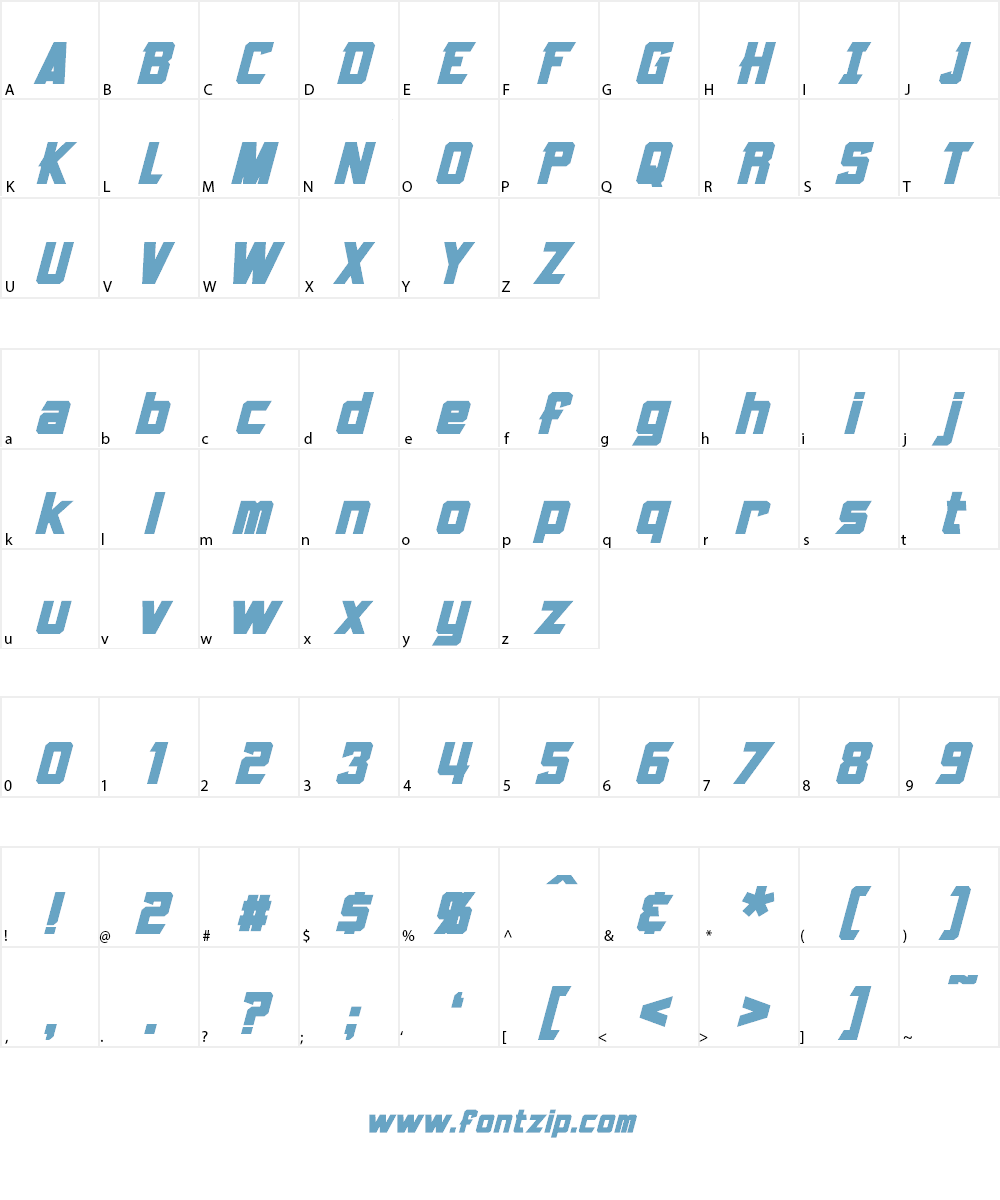
Armorhide is a thick, bold font with a slightly militaristic, science-fiction flare. Includes full alphabet, extended character set, punctuation, and euro. Includes regular bold, italic, and bold-italic versions. (Version 1.10)